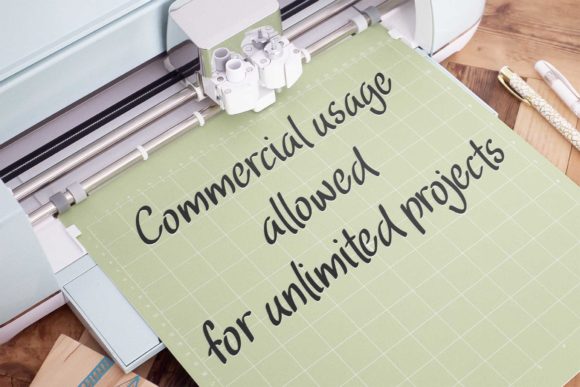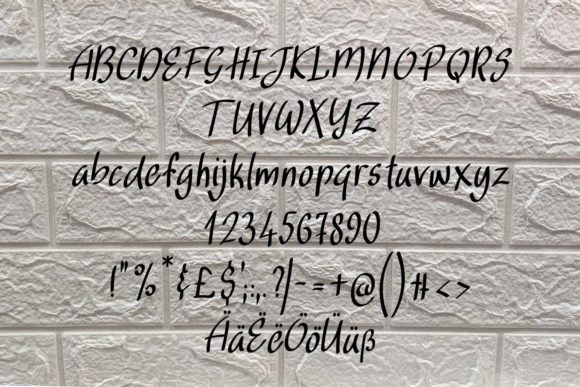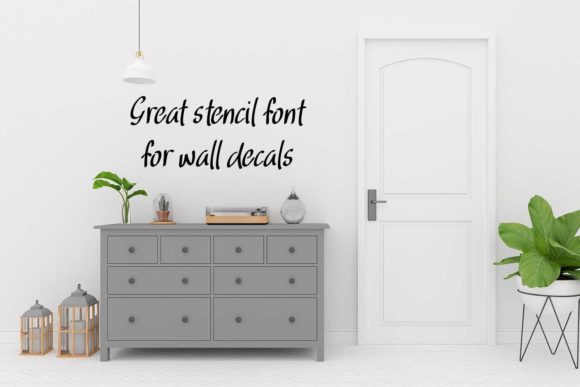
Introduction to Rystabel Font
Have you ever stared at a blank canvas, waiting for inspiration to strike? For designers, this moment is all too familiar. It’s the spark that ignites a creative project, and the right font can be the missing piece that brings it all together. That’s where the Rystabel Font comes in – a carefully crafted handwritten stencil font that’s sure to elevate your designs to the next level.
With its neat and simple style, the Rystabel Font is a versatile design resource that can be used across a wide range of creative projects. Whether you’re working on a high-quality brochure, a free downloadable template, or a simple social media graphic, this font has the potential to add a touch of sophistication and elegance to your design.
Key Features of Rystabel Font
- High-quality design for creative projects: Rystabel Font is a professional font suitable for various creative projects, including graphic design, digital art, and more.
- Unique characteristics: Rystabel Font features a unique, modern design that sets it apart from other fonts in its class.
Honest Review: Rystabel Font
I recently had the chance to try out the Rystabel Font, and I’m excited to share my honest review with you. As a designer, I’m always on the lookout for high-quality fonts that can elevate my creative projects. The Rystabel Font definitely fits the bill.
Here are some things that work well:
- ✨ High-quality design: The Rystabel Font is meticulously crafted, with beautiful lines and elegant curves.
- ✨ Versatility: This font can be used for a wide range of creative projects, from graphic design to digital typography.
- ⚠️ Limited font sizes: The Rystabel Font is best suited for small to medium-sized font sizes. Using it for large font sizes may compromise its readability.
- ⚠️ Not ideal for body text: While the font is perfect for headlines and titles, it may not be the best choice for body text due to its ornate design.
Overall, I’m impressed with the Rystabel Font. Its high-quality design, versatility, and free download make it a valuable addition to any designer’s toolkit. Just be mindful of its limitations when choosing the right font size and application.
The Rystabel Font is a high-quality, free download design resource perfect for creative projects. With its unique style and transparent background, this font is ideal for designers looking to add a touch of elegance to their work.
Experiment with different font sizes and styles to achieve the desired look.
Combine the Rystabel Font with other design elements, such as graphics and images, to create visually appealing designs.
The Rystabel Font is ideal for:
- Creating logos and brand identities.
- Designing business cards and brochures.
- Developing presentations and reports.